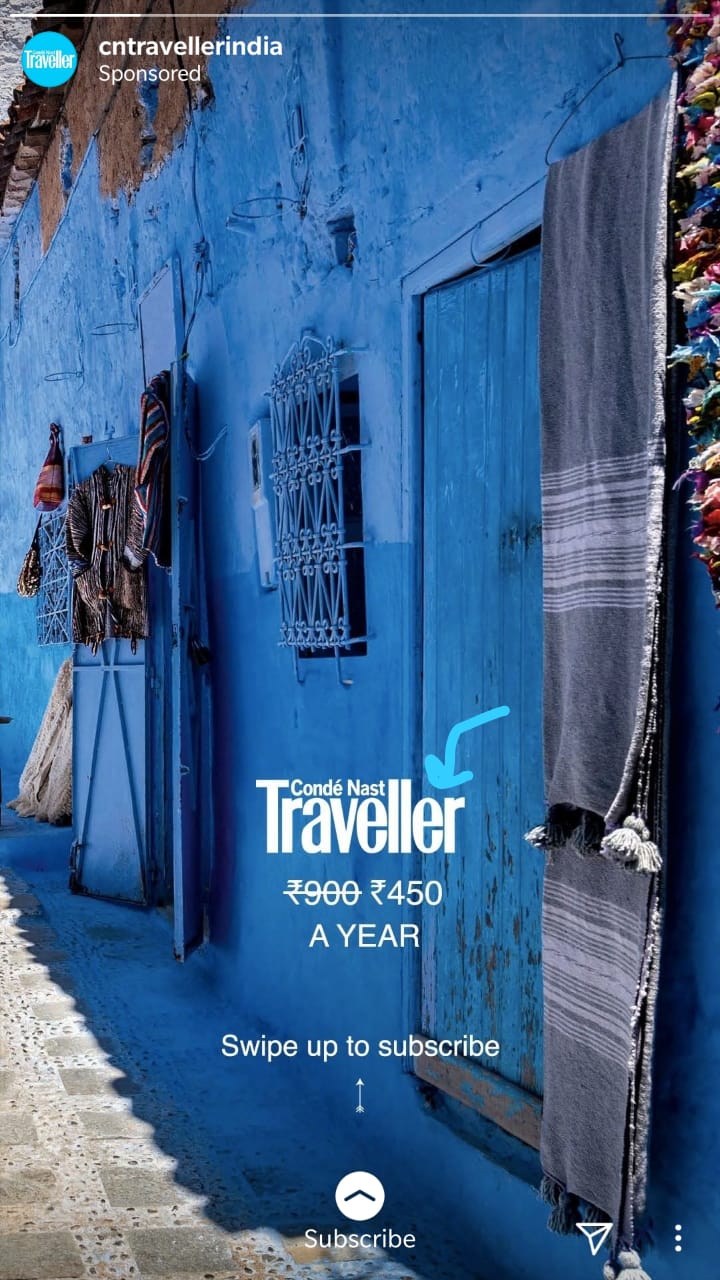
Hey all! Does anyone know the name of the typeface used for ‘Traveller’?
Closest I could get is Triple Condensed Gothic, though there are some differences. You could always type it out, convert to outlines, then modify! Or maybe they have alternate glyphs available for a slightly different style.
This one has me stumped too. I can’t seem to pin it down .. none of the a’s or e’s match. So maybe it’s a Frankenfont ![]()
Right?? Definitely a Frankenfont hahaha. Even searched my own library and couldn’t find anything exact.
If I were the design director of a magazine like Condé Nast Traveler, I wouldn’t be relying on a commercial typeface for my nameplate. I’d design it myself, which is what I suspect they might have done.